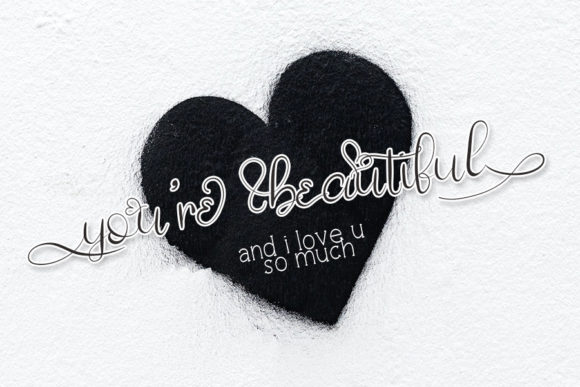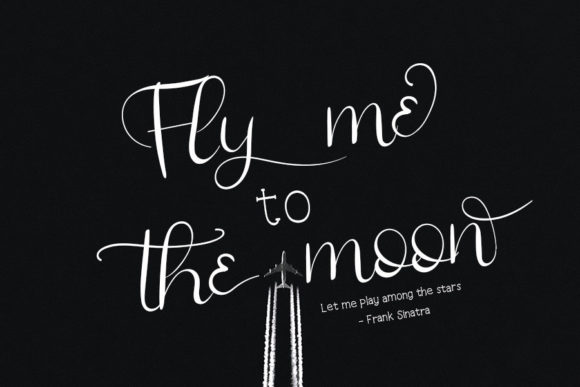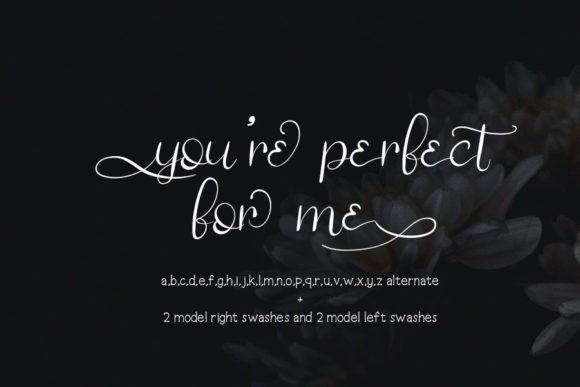
Introduction to Limited Masterpiece Font
As you sit in front of your computer, brainstorming ideas for your next creative project, the perfect font can be the missing piece that brings everything together. It’s that ‘aha’ moment when you stumble upon a design resource that elevates your entire concept – and for many designers, that moment comes with the discovery of the Limited Masterpiece Font.
This beautiful and delicate duo font, comprising both serif and script styles, exudes elegance and class, making it a valuable addition to any design arsenal. With its lovely aesthetic and high-quality design, it’s no wonder why designers are drawn to this versatile font for their projects, from wedding invitations to branding materials.
Whether you’re looking for a free download or seeking a design element that will give your work a professional edge, the Limited Masterpiece Font is a must-have resource for any creative project, especially when paired with a transparent background to showcase its full beauty.
Key Features of Limited Masterpiece Font
- High-quality design resource ideal for creative projects, available for free download
- Unique and exclusive font style, perfect for making a statement in your designs
- Comes with a transparent background, allowing for seamless integration with any design
- Perfect for designers looking for a unique and exclusive font to elevate their designs and make them stand out
Honest Review: Limited Masterpiece Font
I recently stumbled upon the Limited Masterpiece Font, and I must say it’s a gem. As a designer, I’m always on the lookout for high-quality design resources to elevate my creative projects. This font definitely delivers.
What works well is the font’s versatility. It’s perfect for a variety of projects, from brochures to social media graphics. The Limited Masterpiece Font is also incredibly easy to use, thanks to its transparent background. This makes it a breeze to layer over other design elements.
Here are some of my favorite features:
- High-quality design that’s perfect for professional projects
- Transparent background for easy layering
Overall, I’m impressed with the Limited Masterpiece Font. It’s a great addition to any designer’s toolkit, and I would highly recommend it for personal or small-scale projects. Just be aware of its limitations before using it for larger projects.
Tips for Getting the Most Out of Limited Masterpiece Font
Use the Limited Masterpiece Font in combination with other design resources to create a unique and high-quality design. Experiment with different font sizes, colors, and styles to achieve the desired look. Make sure to save your design in a high-resolution format to ensure that it looks great on any device.
The Limited Masterpiece Font is ideal for creative projects such as graphic design, digital art, and typography. It can also be used in marketing materials, logos, and branding elements. With its high-quality design and transparent background, the Limited Masterpiece Font is a valuable design resource for any creative project.